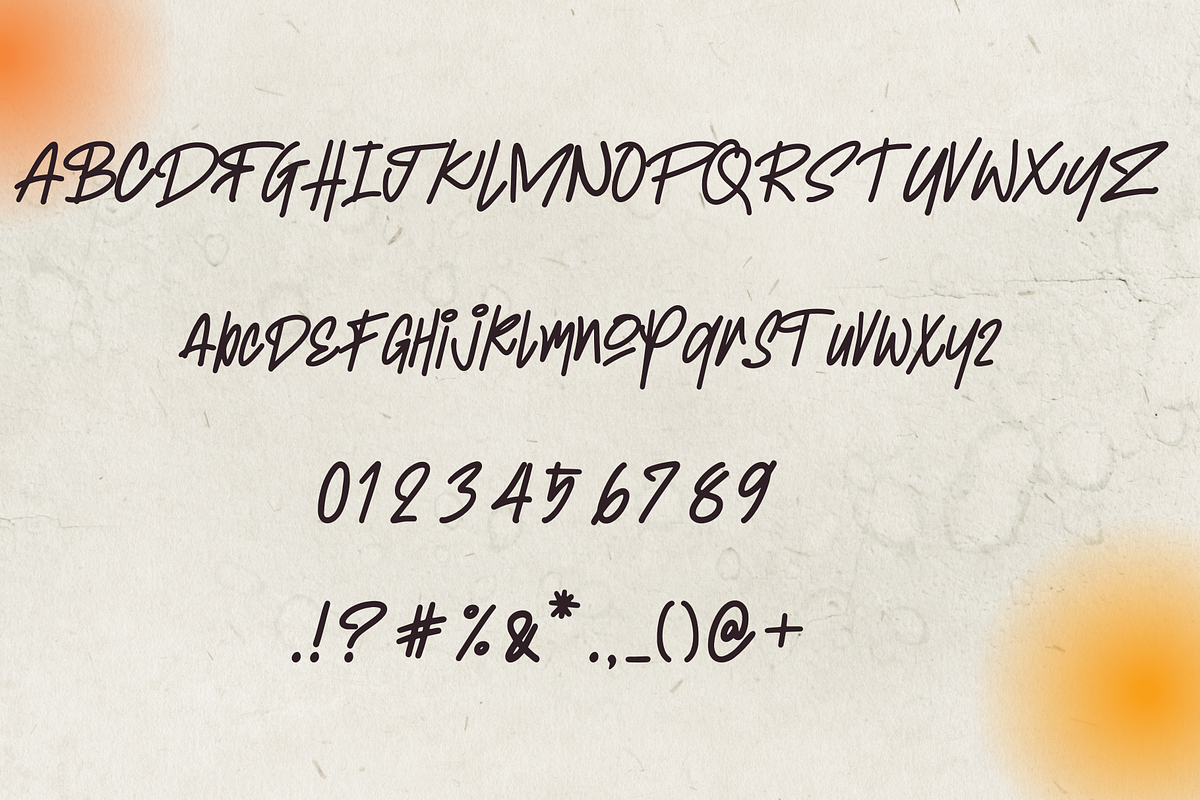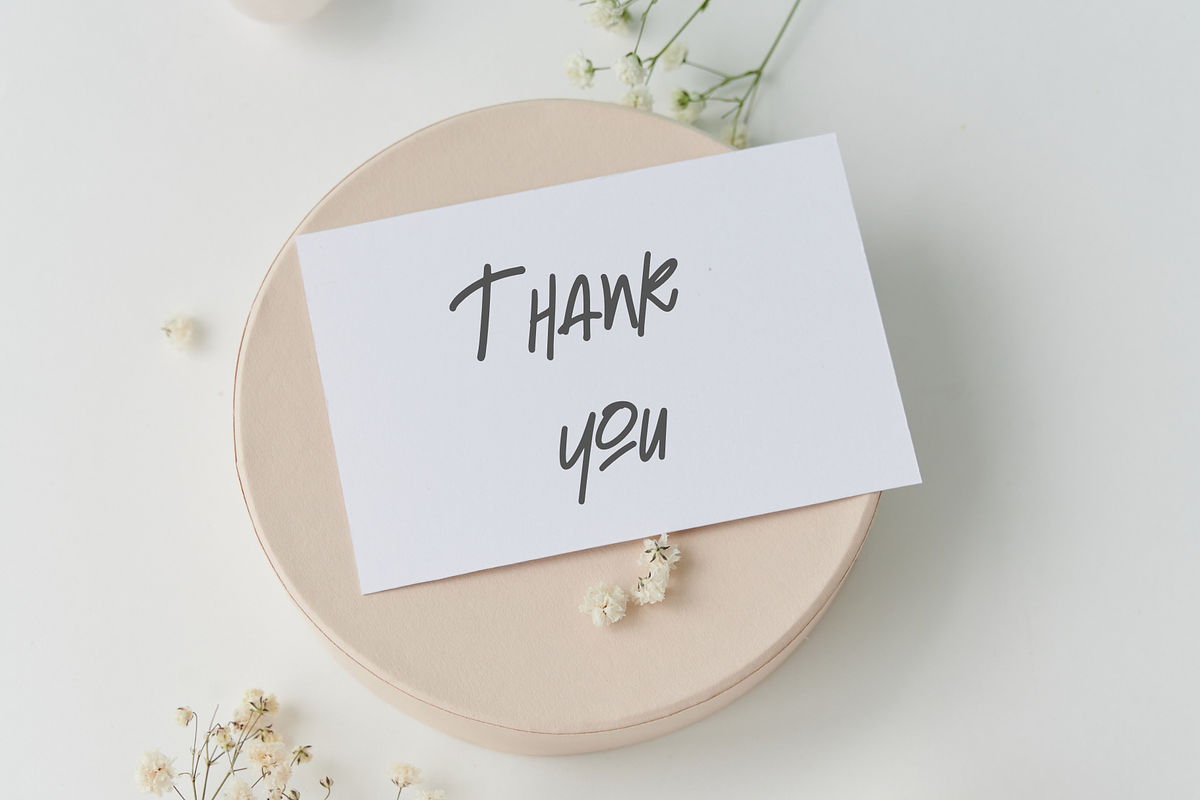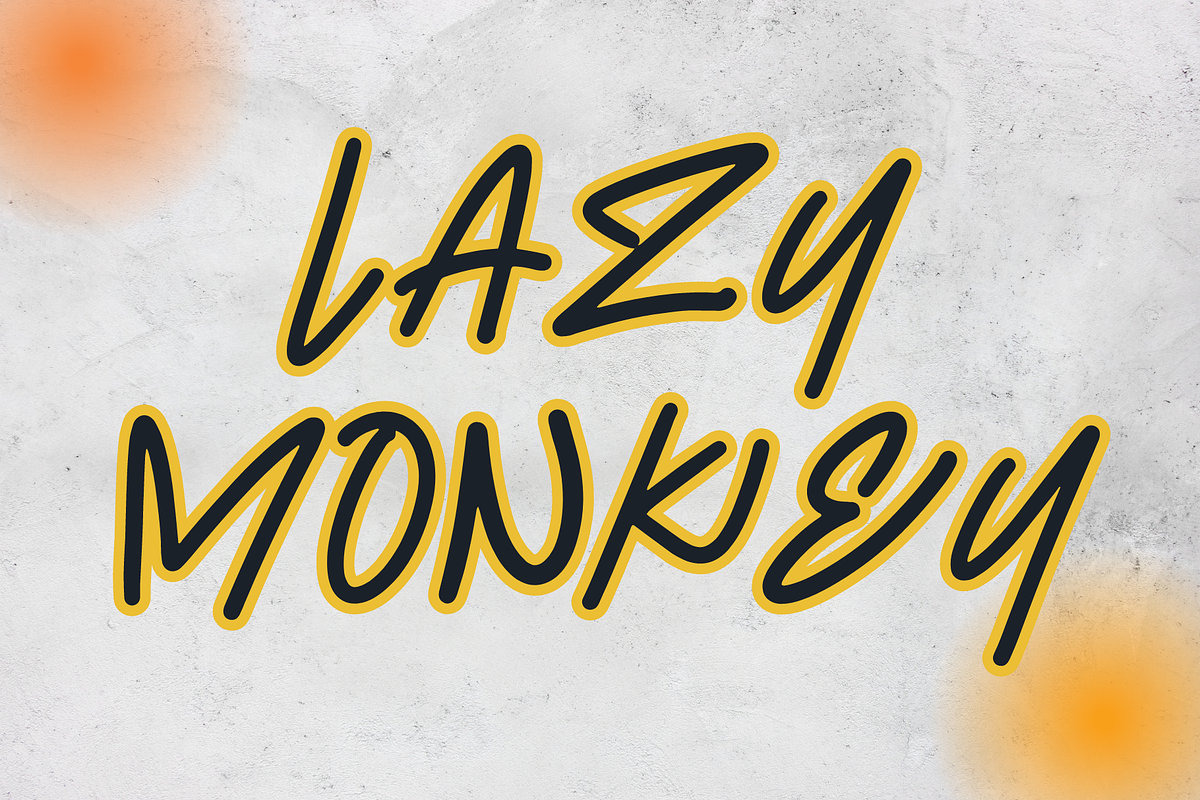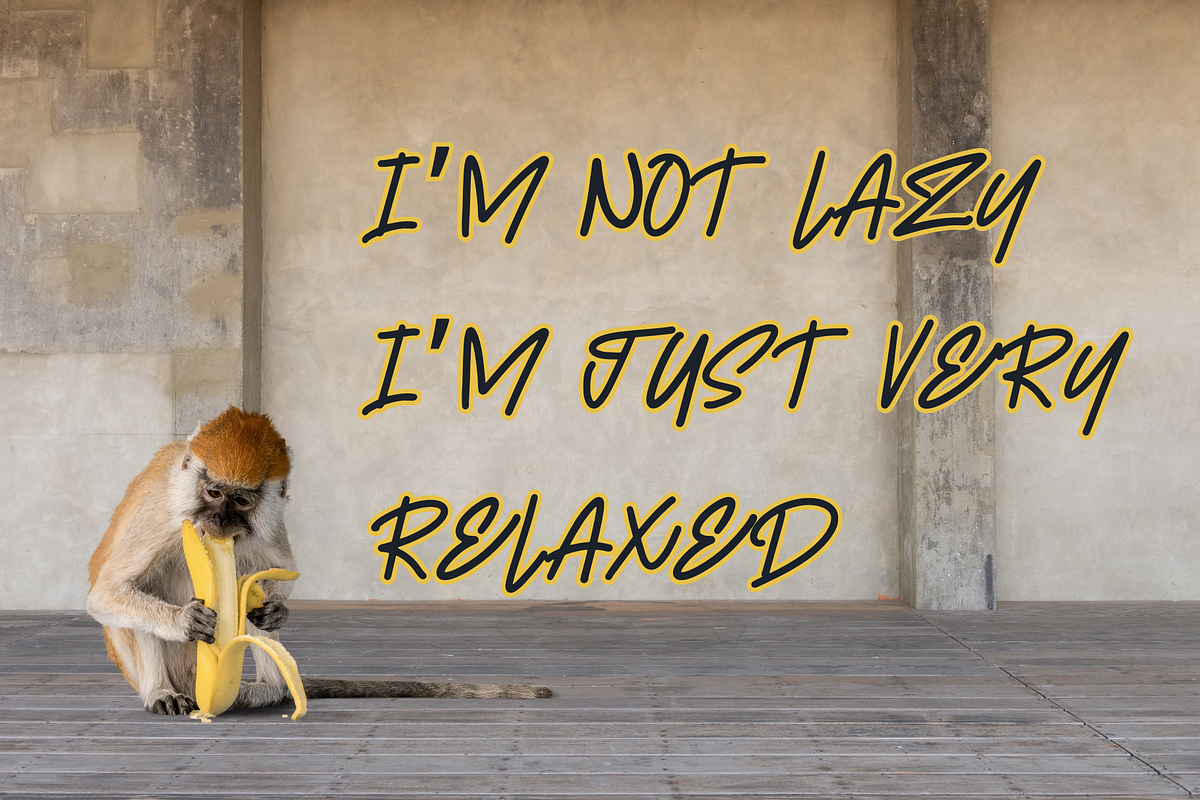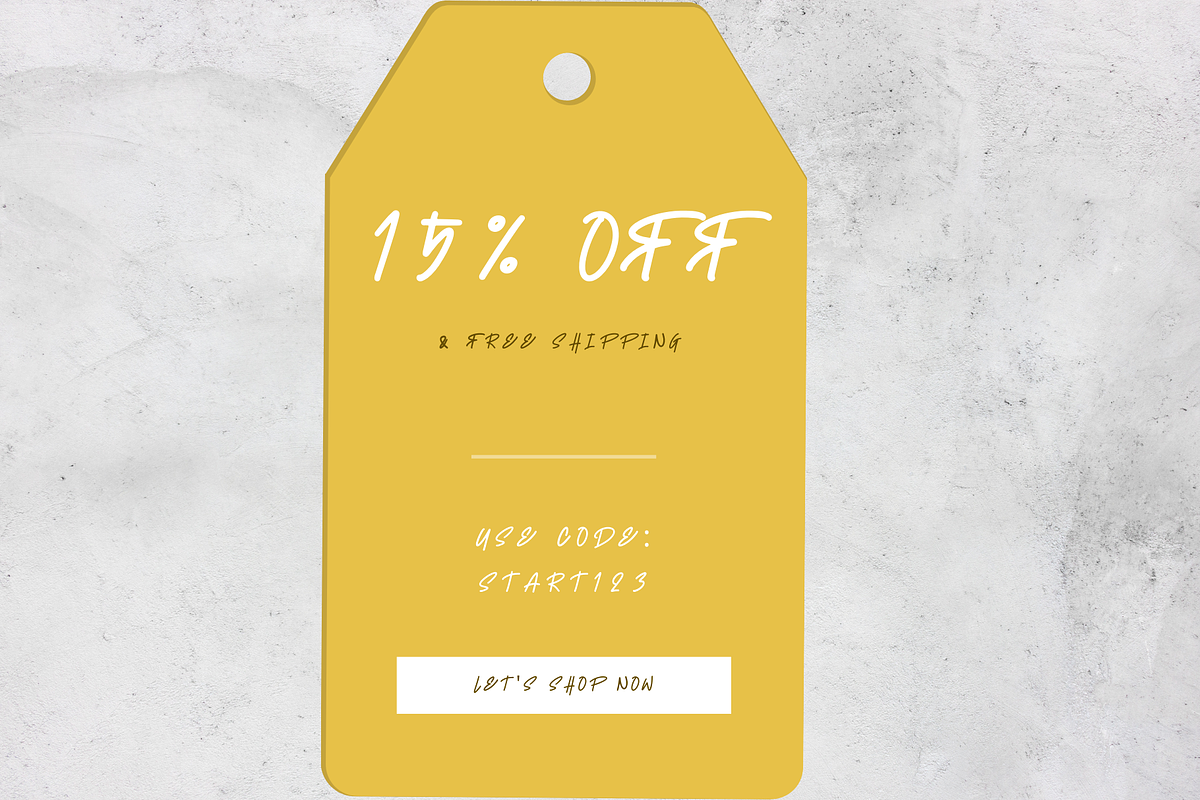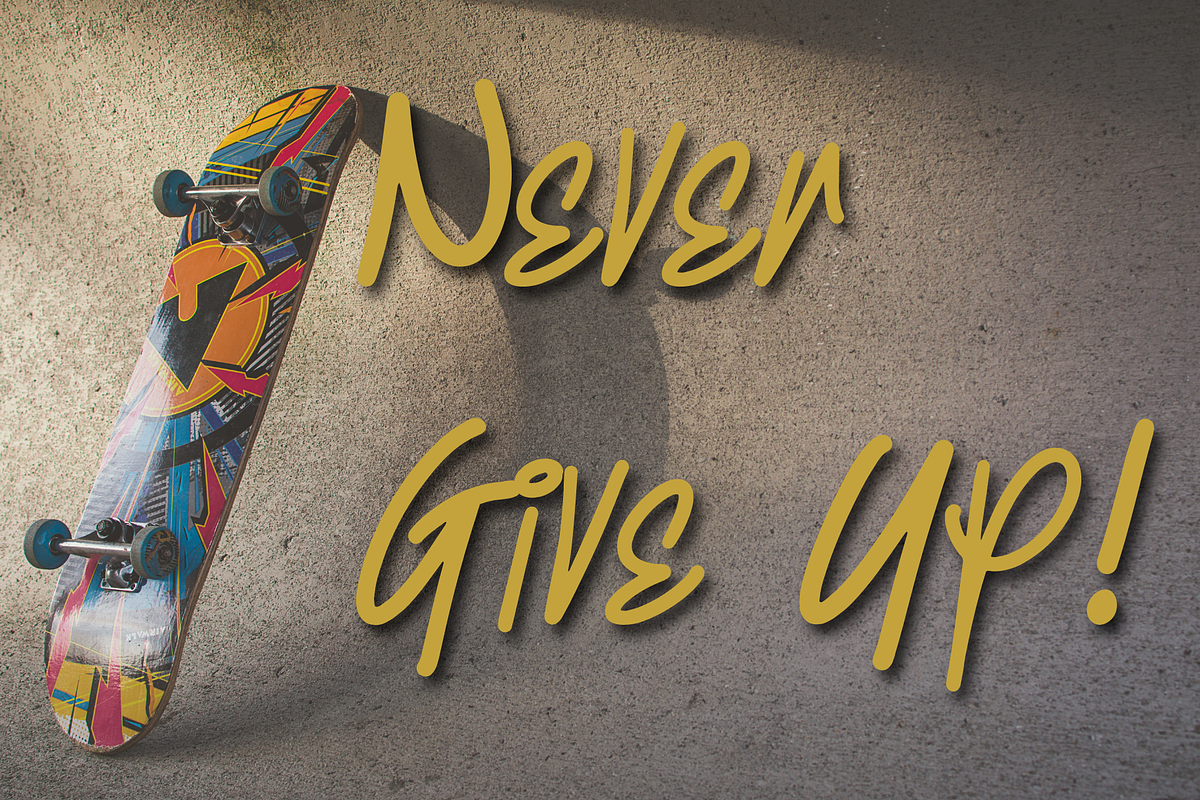
Lazy Monkey
Lazy Monkey is a friendly handwritten font that will add elegance and class to any of your design projects, logos, wedding designs, social media posts, advertisements, product packaging, product designs, label, photography, watermark, invitation, stationery, and any other projects.